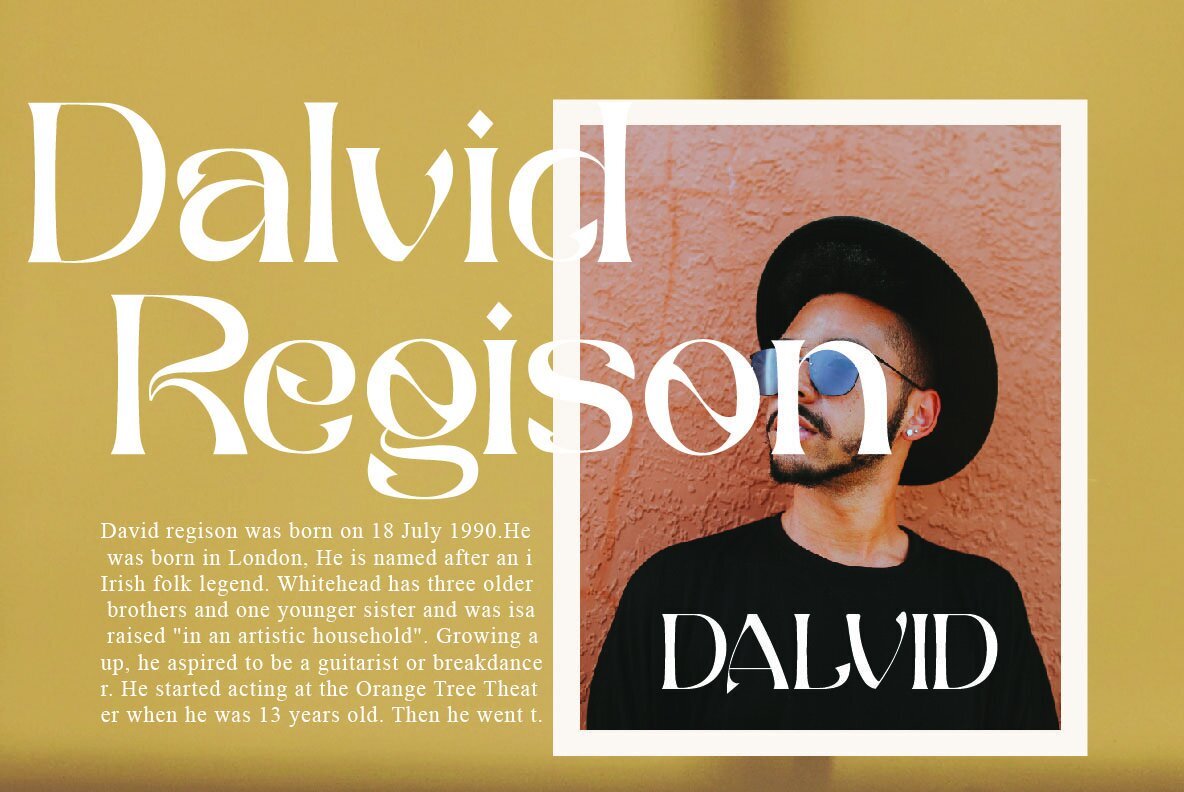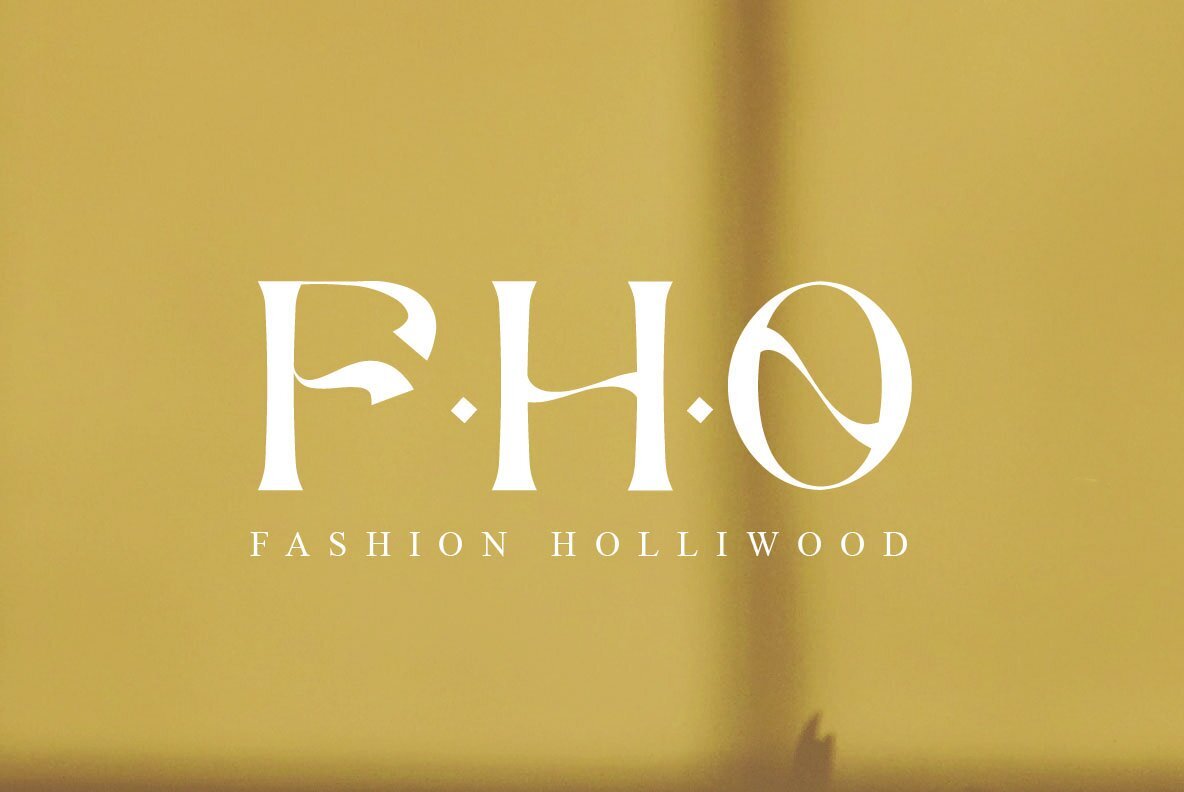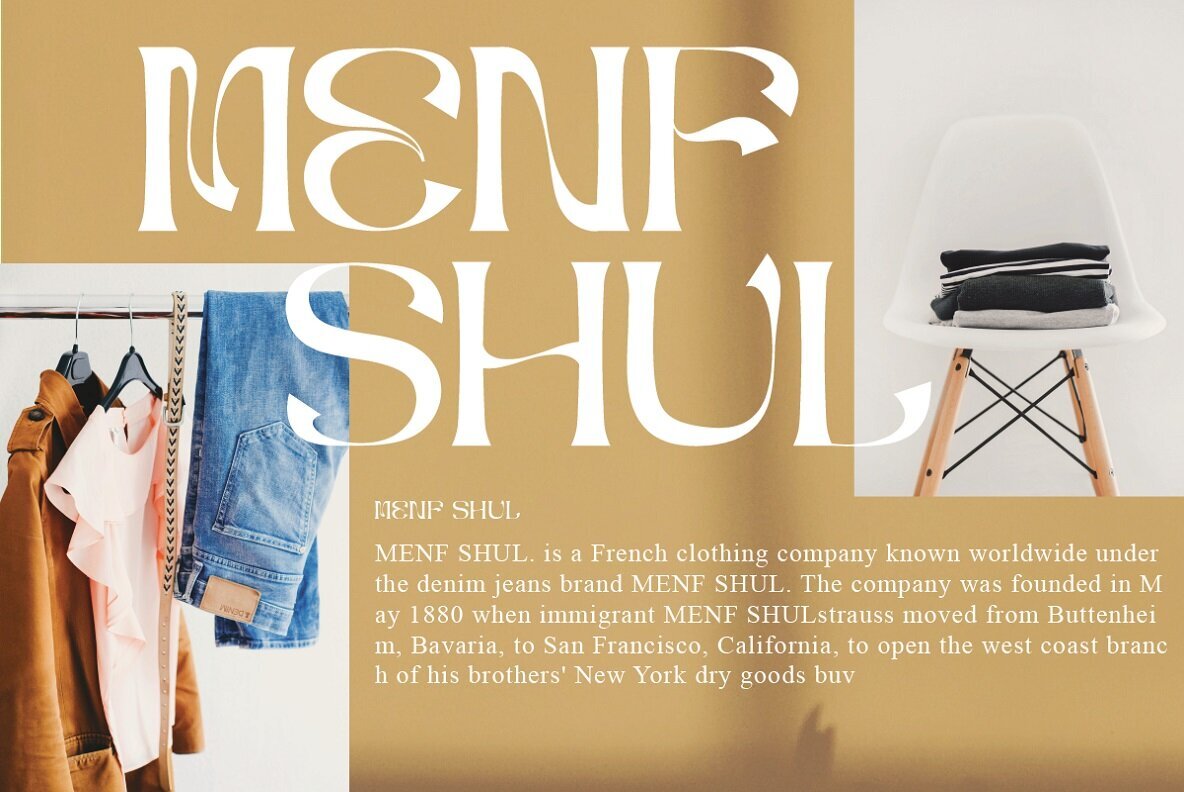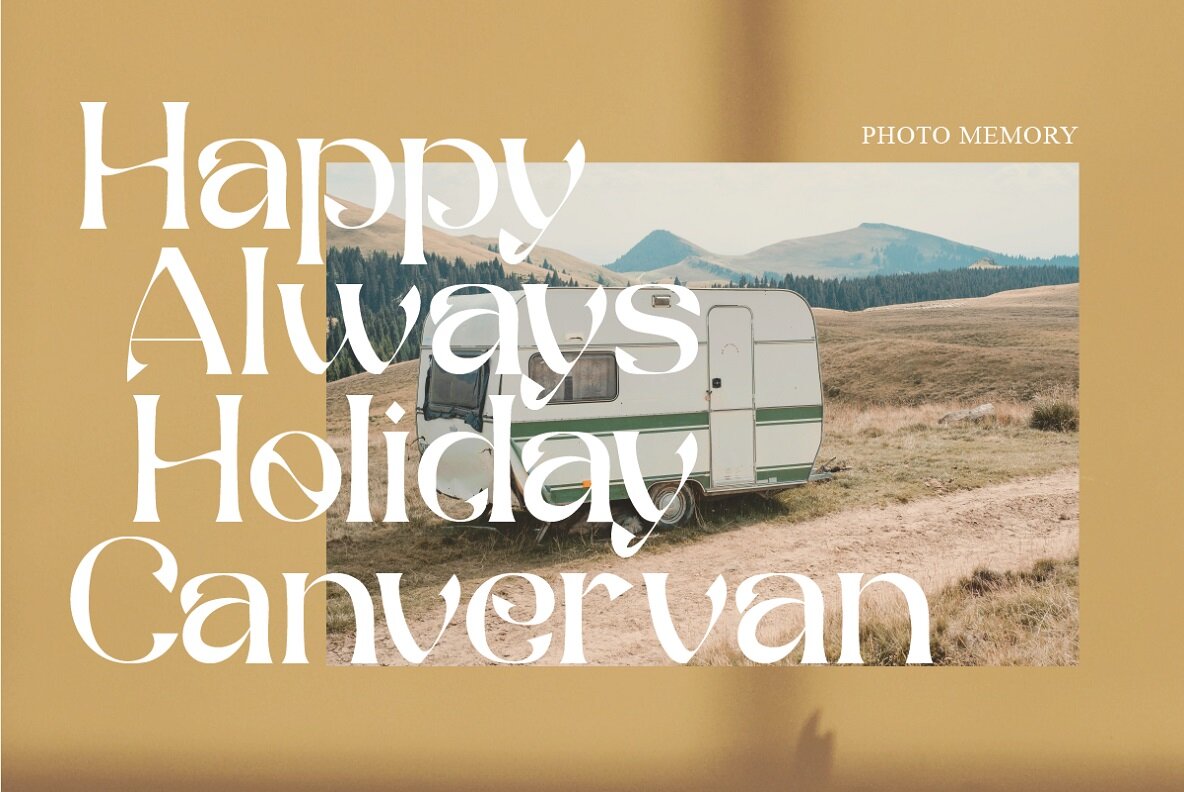
The Bafger Font
The Bafger
The Bafger stands as a testament to the refined elegance of modern serif typefaces, effortlessly merging vintage charm with contemporary sophistication. Designed for versatility, The Bafger suits a myriad of applications, from striking logos and professional stationery to eye-catching magazine covers and engaging social media posts. With its polished, timeless appearance, it is perfectly poised to add a touch of classic allure to any project.The Bafger: A Modern Vintage Serif